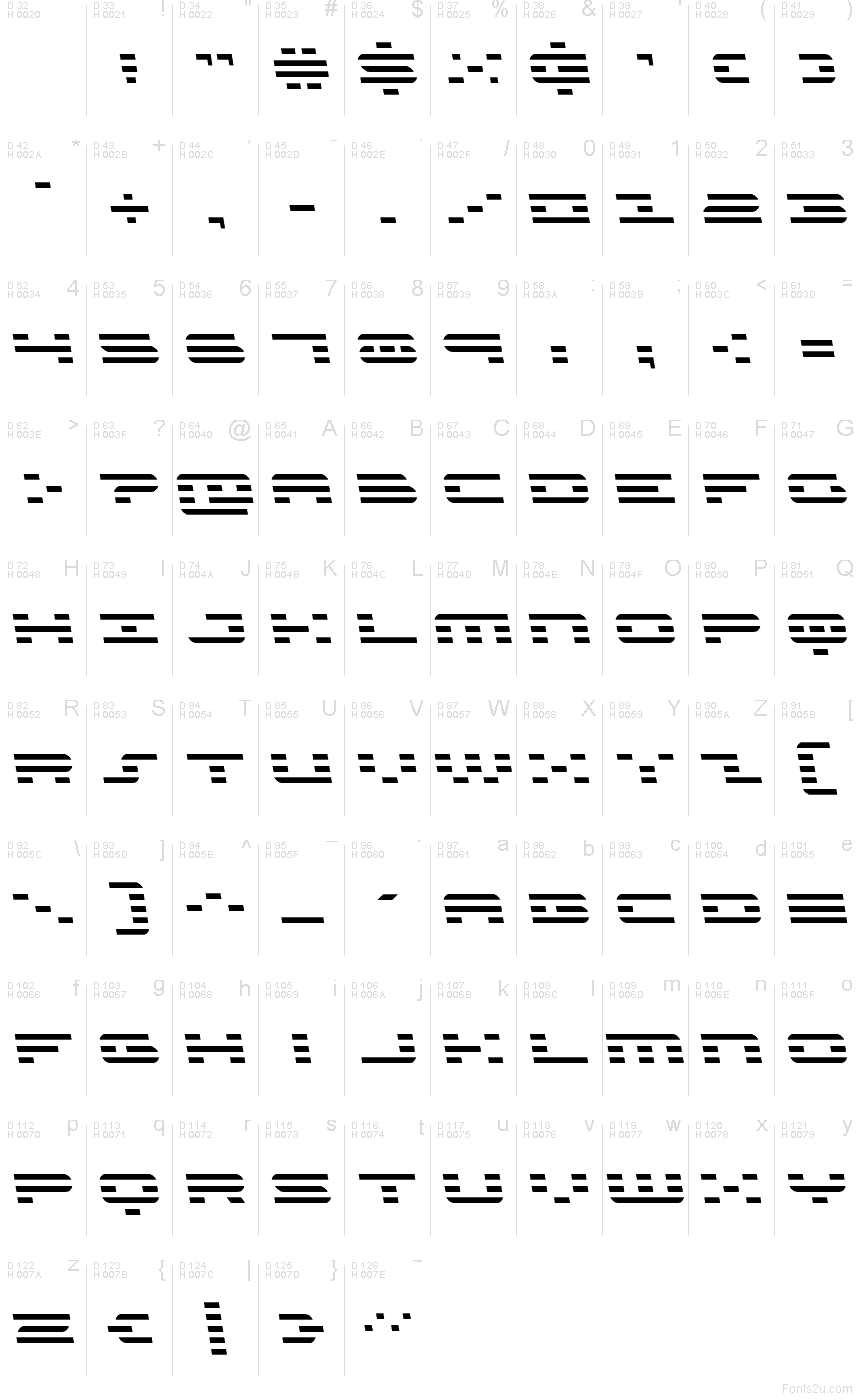
Nova Terra Semi-Leftalic
Nova Terra Semi-Leftalic font by Iconian Fonts is a free futuristic display typeface. Every letter lunges forward with a sharp slant, sliced into angular segments and speed-stripe gaps that feel like motion blur frozen on screen. The blocky geometry stays tightly controlled, so even with all the cuts and breaks, words lock together like panels on a sci-fi hull.
Using Nova Terra Semi-Leftalic, headlines instantly read as high-tech, aggressive, and fast. This free font shines on esports branding, sci-fi posters, racing graphics, tech event titles, YouTube thumbnails, game logos, and futuristic UI mockups. Set it large so the segmented structure is clear, and pair it with a clean geometric sans serif for smaller copy to keep the overall system readable and cohesive.